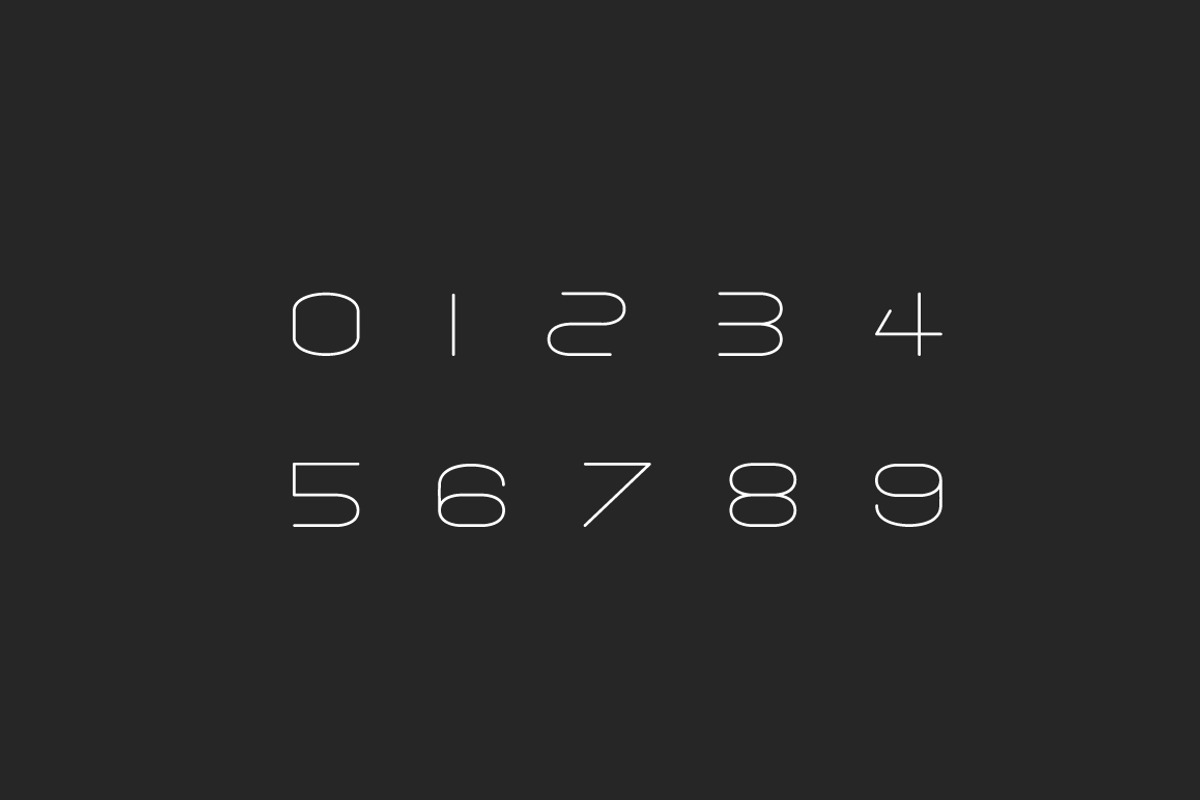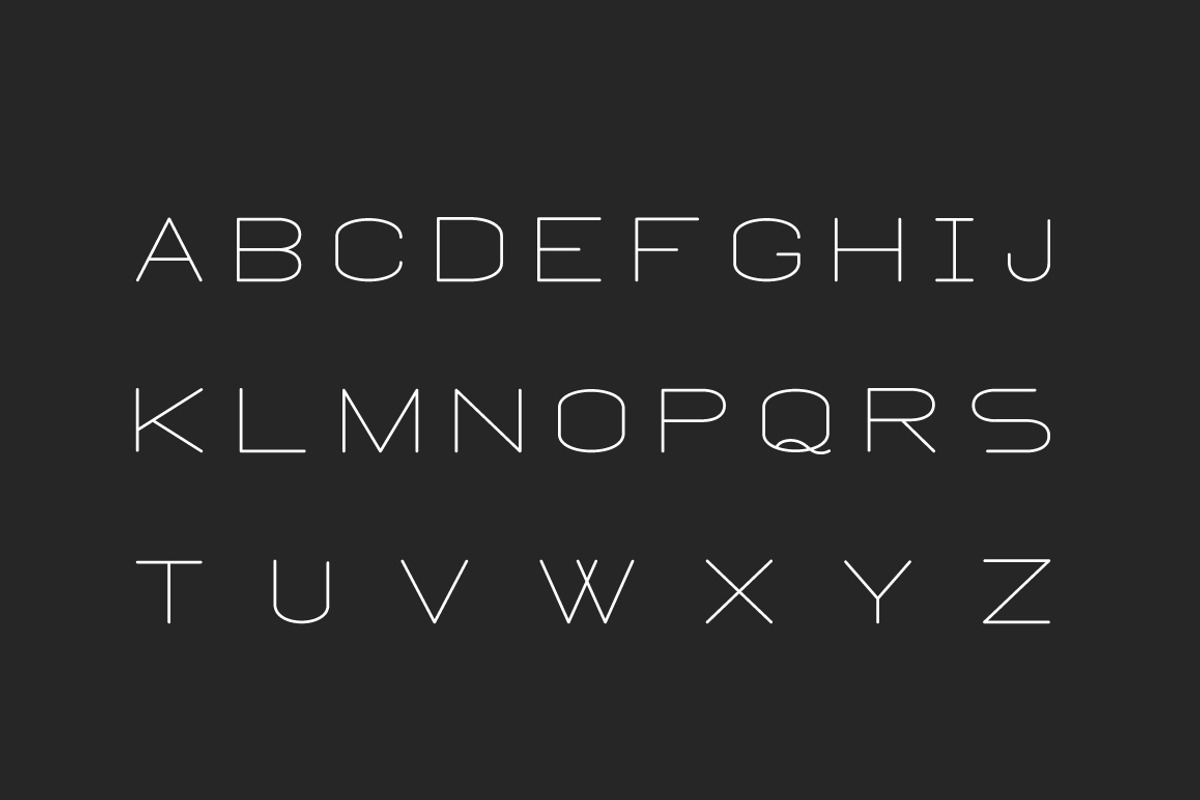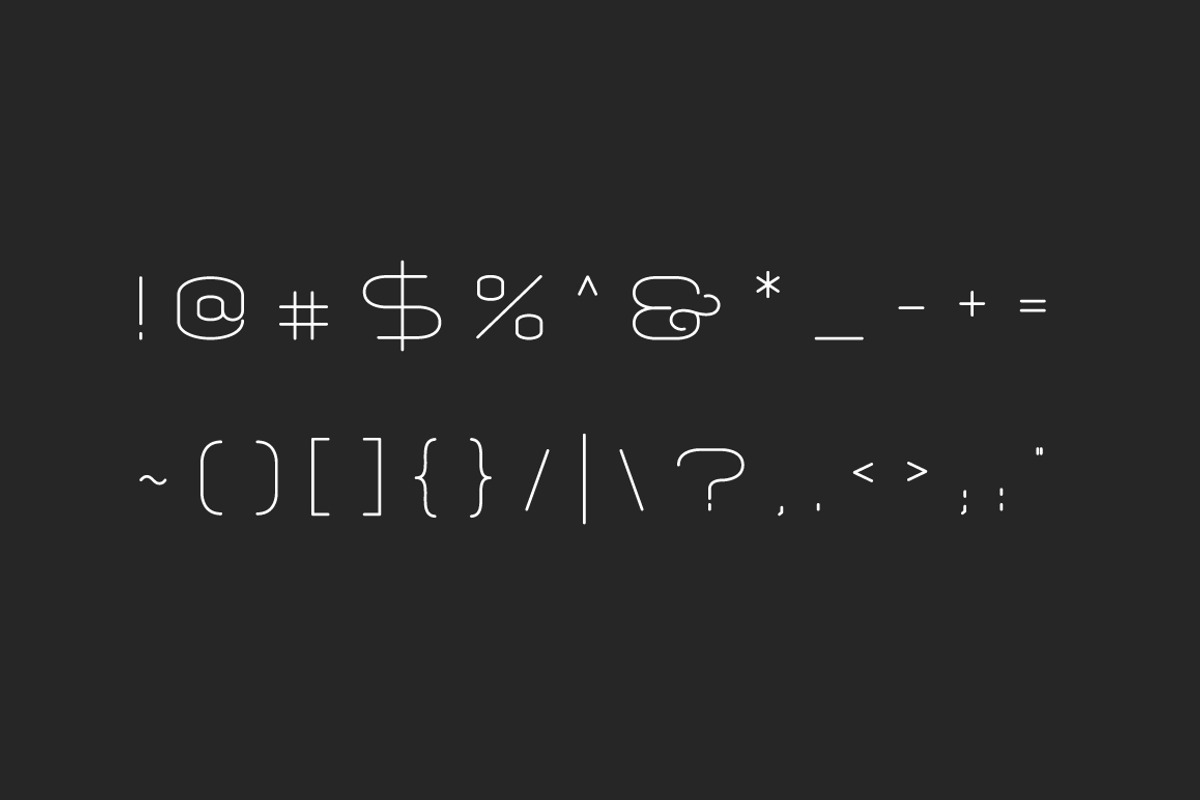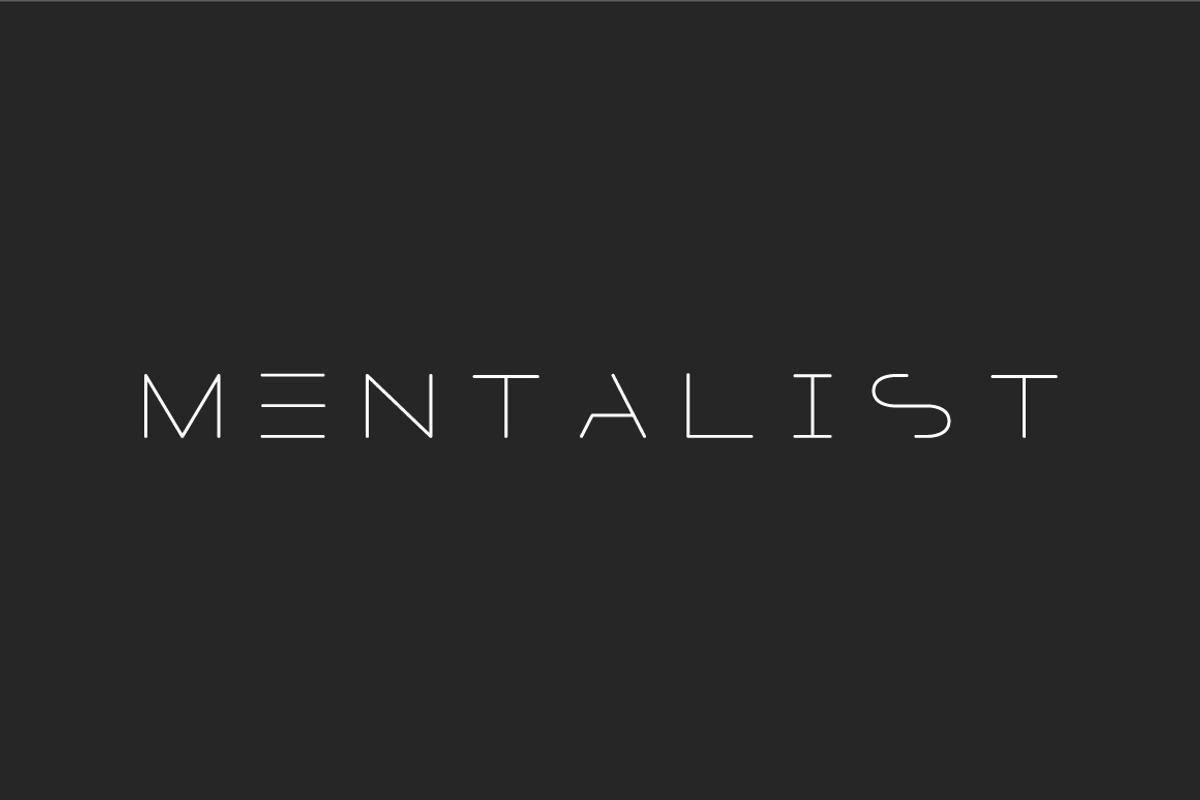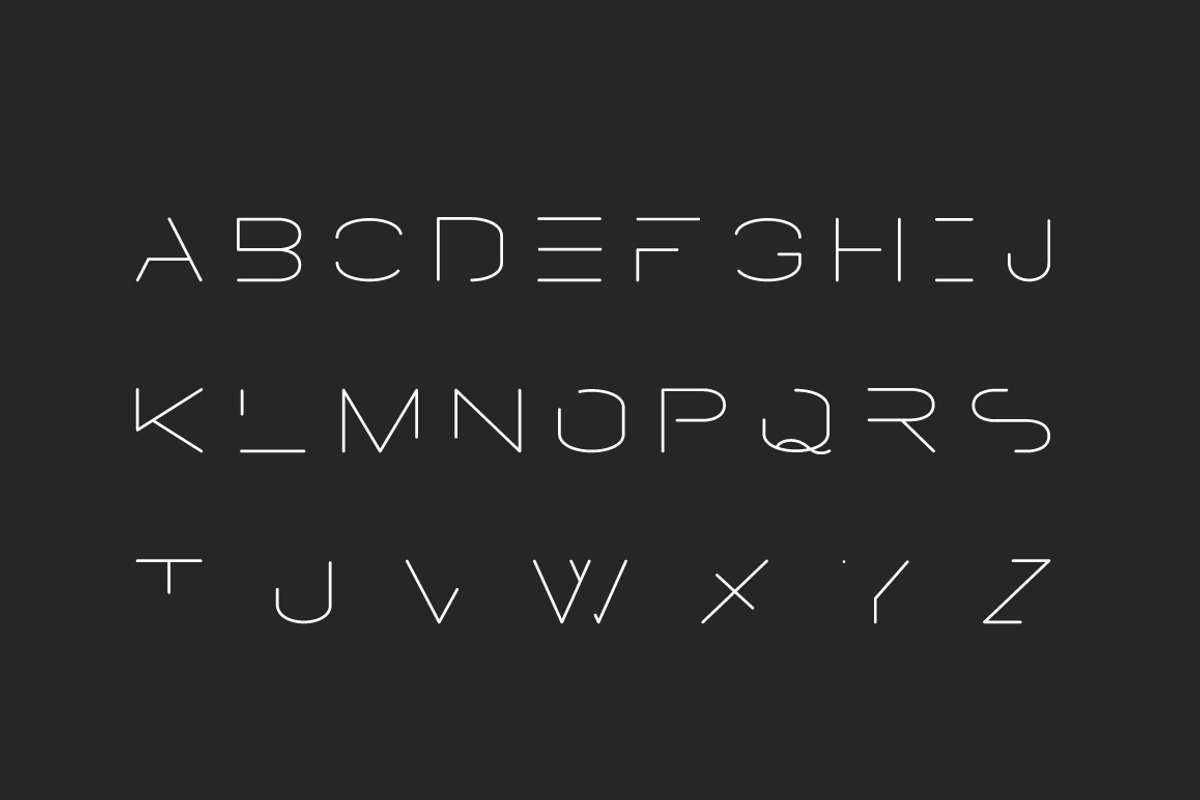
MENTALIST - FUTURISTIC DISPLAY FONT
A handcrafted futuristic display font. The Cropped version of the font is perfect for minimal logo designs. Perfect for all purposes but especially for headlines and display purposes. Pairs well with bold sans serifs.